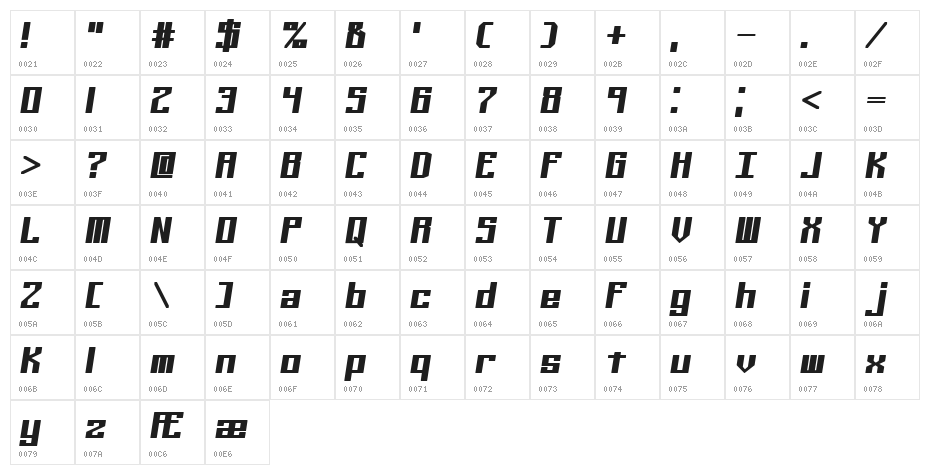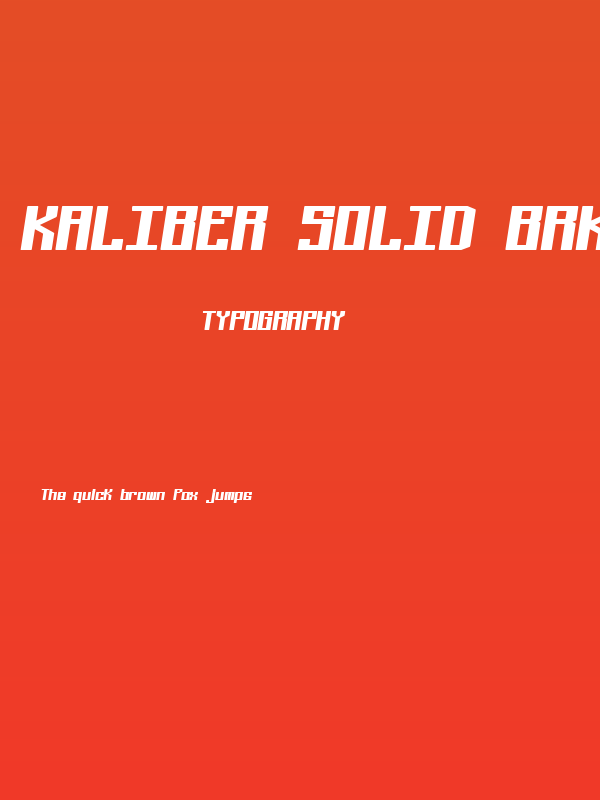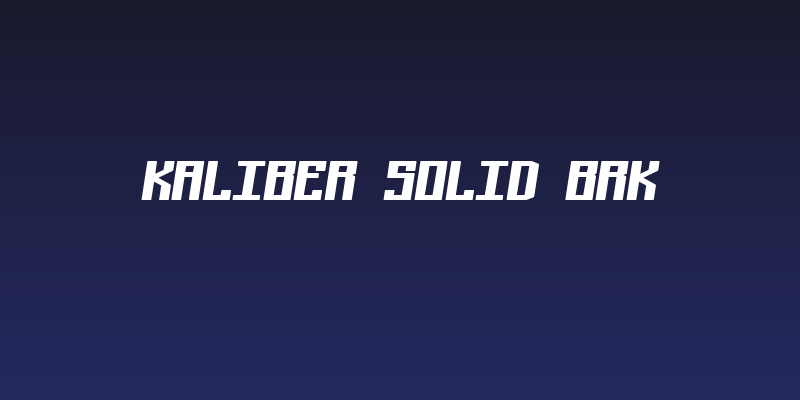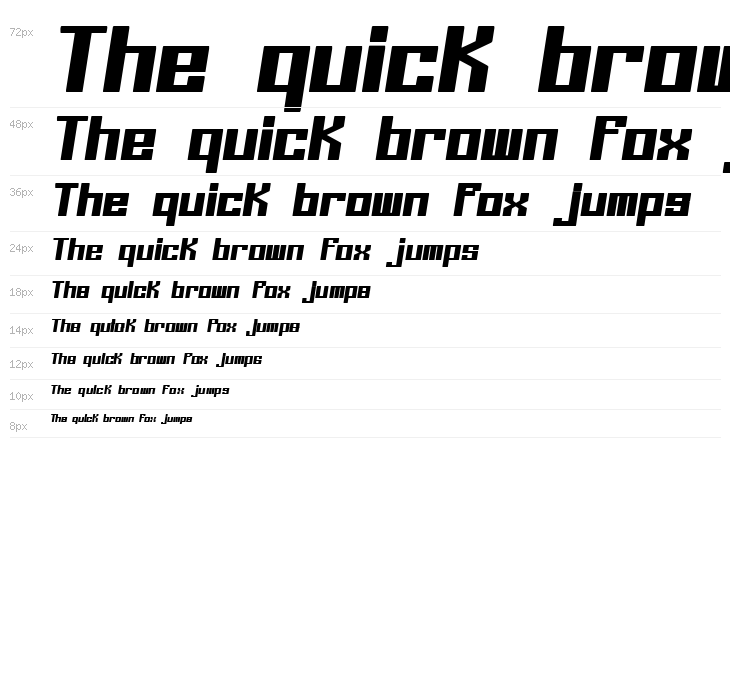
Kaliber Solid BRK Font
Kaliber Solid BRK Description
This font features a bold and angular design with a distinctly modern and geometric aesthetic. The characters are sharply cut with a solid, block-like appearance, giving them a strong presence on the page. The uppercase letters are particularly striking, with a uniform height and width that creates a cohesive look. The lowercase letters maintain the same angular style, ensuring consistency throughout the typeface. Numbers and special characters are designed to match the boldness and geometric nature of the alphabet, making this font suitable for impactful and attention-grabbing designs.
Proposed ProjectsIdeal for posters, logos, headlines, and branding materials that require a strong visual impact.